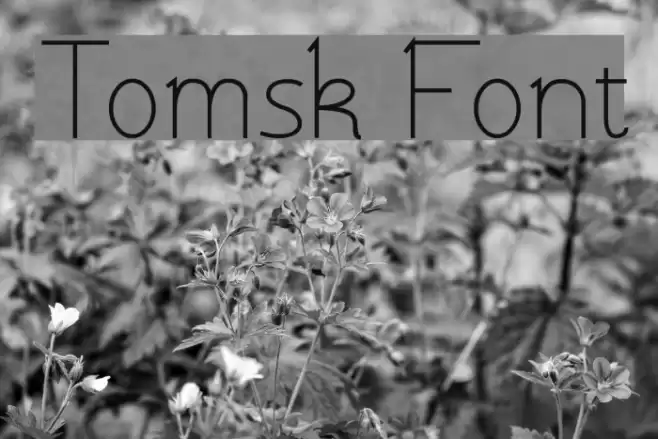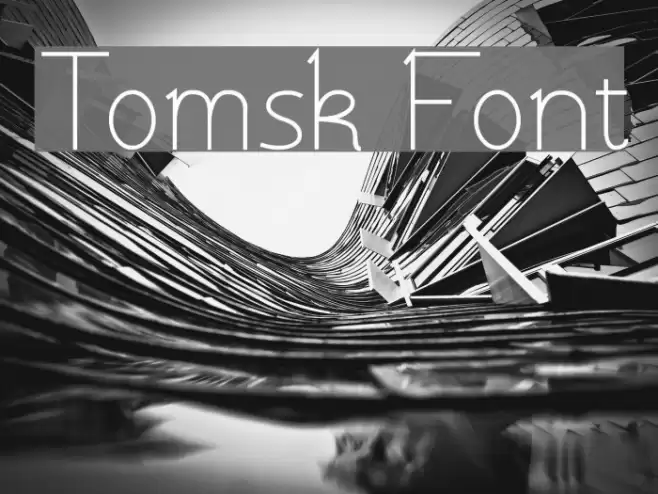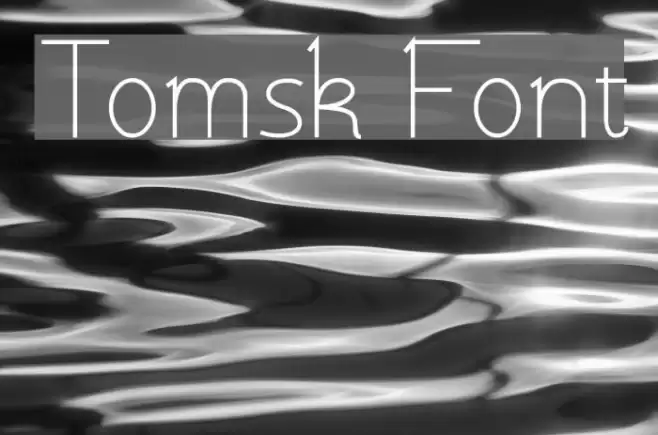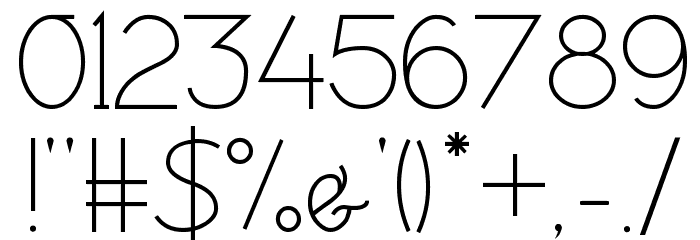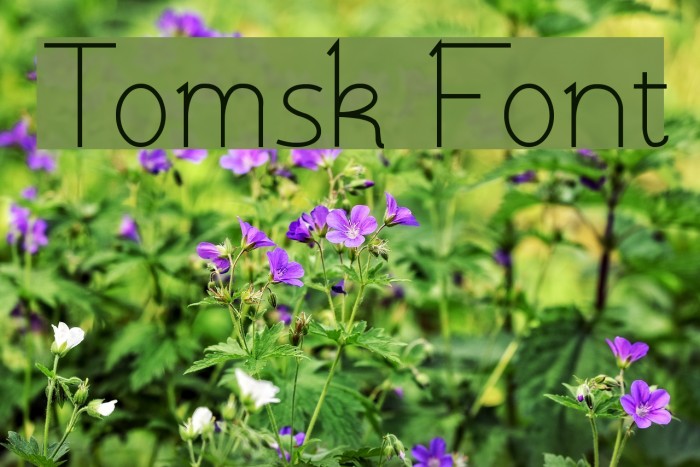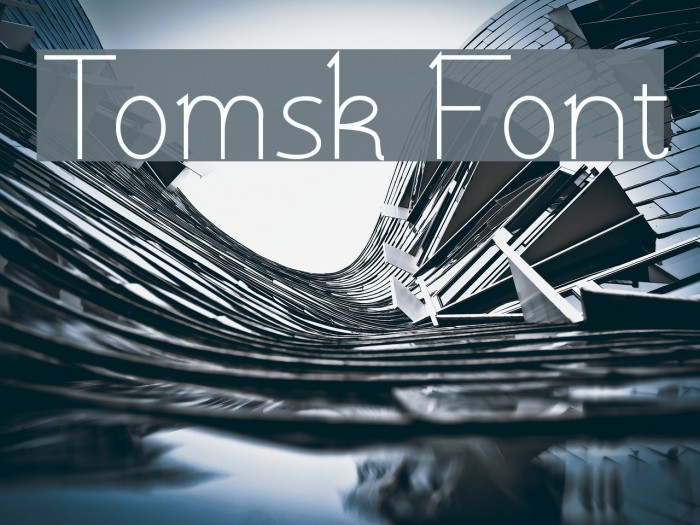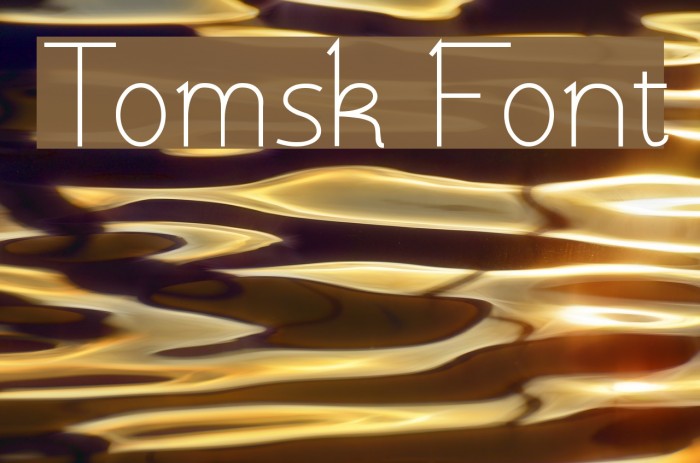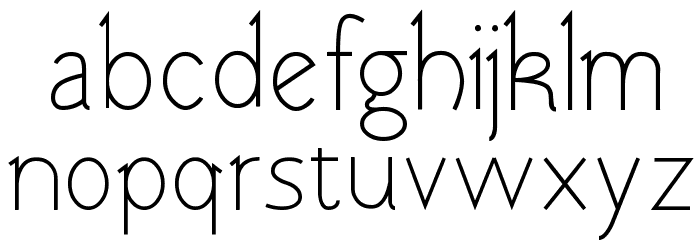
Tomsk
This font features a clean and modern design with a geometric structure. The uppercase letters are tall and narrow, with consistent stroke widths that give a uniform appearance. The lowercase letters maintain a similar geometric style, with rounded forms that add a touch of softness to the overall look. The numerals are straightforward and align well with the alphabet, ensuring readability. Special characters are designed to match the font's clean aesthetic, making it versatile for various uses. The font's simplicity and clarity make it suitable for both digital and print media.
A clean, geometric font with consistent stroke widths and a modern aesthetic.
- Proposed Projects: Ideal for branding, editorial design, web design, and advertising materials.